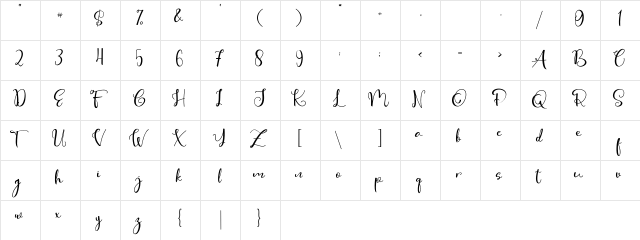
Cute Thing Script (Demo) Regular Font Preview
Design Context for Cute Thing Script (Demo) Typeface
Cute Thing Script (Demo) flows with the natural rhythm of handwritten lettering, making it ideal for designs that call for warmth and personal expression. Its slender proportions lend an understated elegance to any composition.
Font Pairing: Combine Cute Thing Script (Demo) with a simple geometric sans for maximum contrast — the tension between flowing curves and clean structure is a classic typographic pairing.
Pro Tip: Pair Cute Thing Script (Demo) with a clean sans-serif for supporting text. The contrast between fluid script and geometric structure creates an elegant typographic hierarchy.